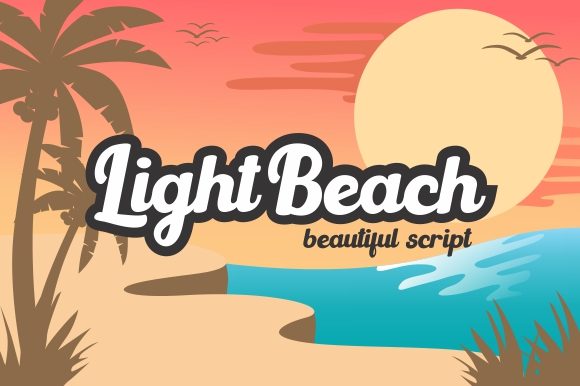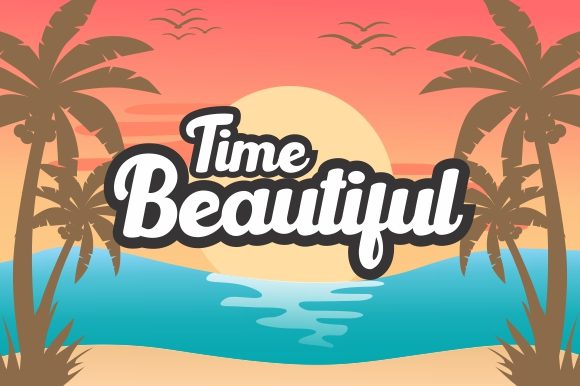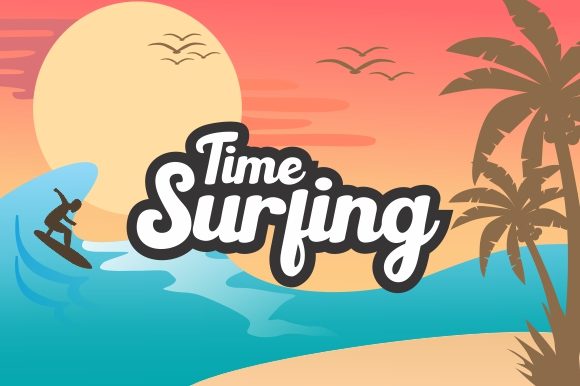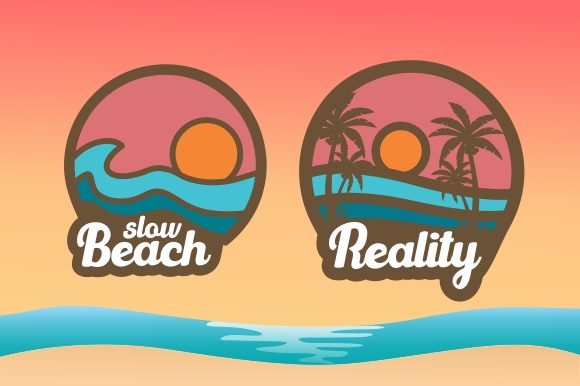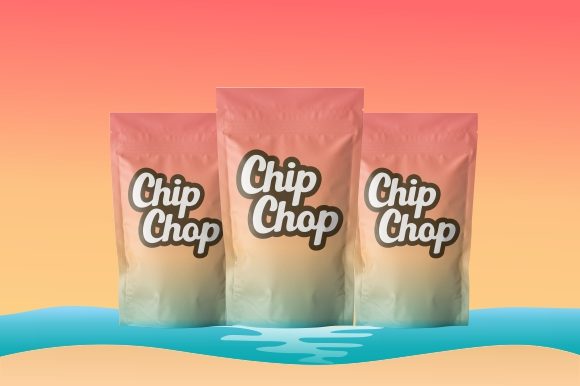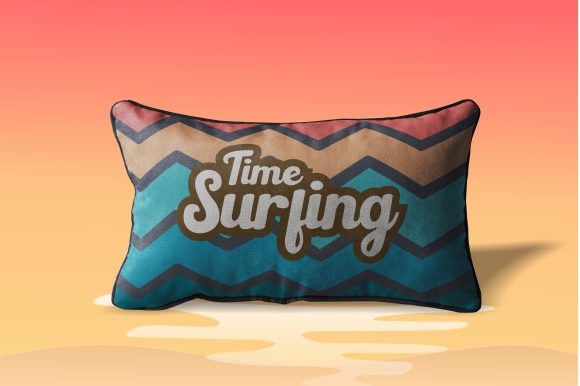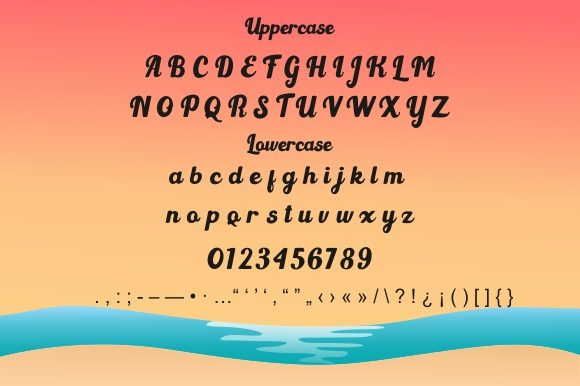
Light Beach Font
About Light Beach Font
Light Beach celebrates the sweeter things in life. It’s inspired by the surf culture of the 60s and will add a distinctly retro feel to any design. Fall in love with its groovy, authentic charm.